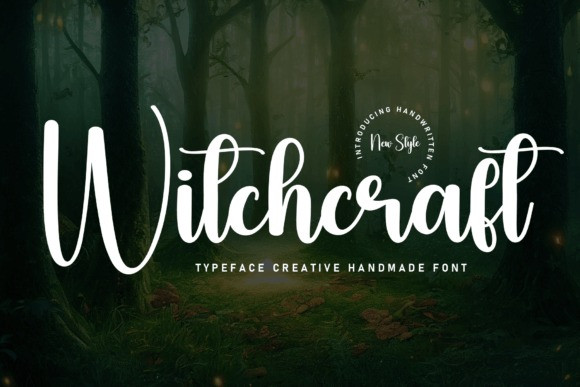
Witchcraft Script Font
Witchcraft Script Font is a lovely and timeless handwritten font. It is the best choice for creating eye catching logos, branding and quotes. Every letter has a unique and beautiful touch, which will make your design come alive!